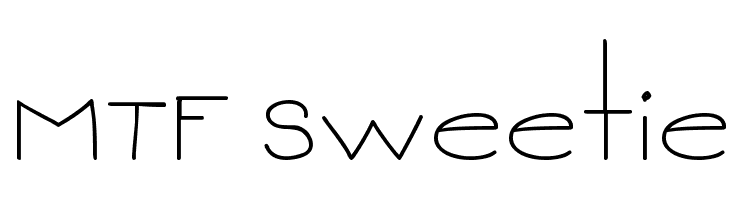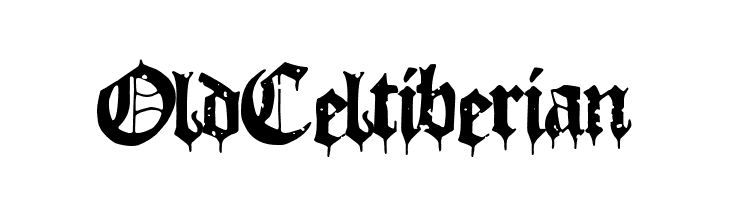
A playful, handwritten font with a whimsical and casual style.
A bold, angular Blackletter-inspired font with a modern contour effect.
A bold, distressed slab serif font with a vintage Western feel.
Whimsical dingbat font with fairy illustrations.